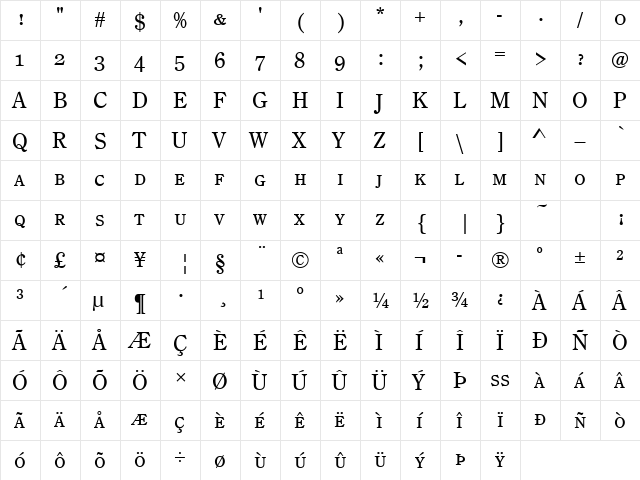
CenturyOldStySCTReg Regular Font Preview
CenturyOldStySCTReg Regular
Design Context for CenturyOldStySCTReg Typeface
CenturyOldStySCTReg is a composed and adaptable typeface that performs quietly and consistently across a wide range of design contexts.
Pro Tip: Use CenturyOldStySCTReg in both headline and body roles to test its range before committing to a single application.